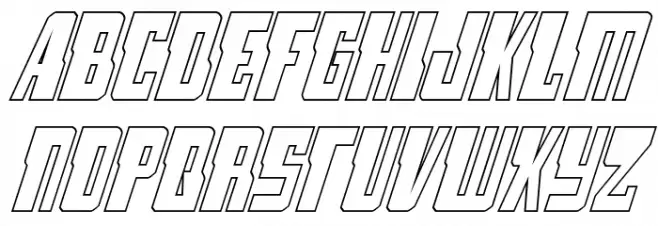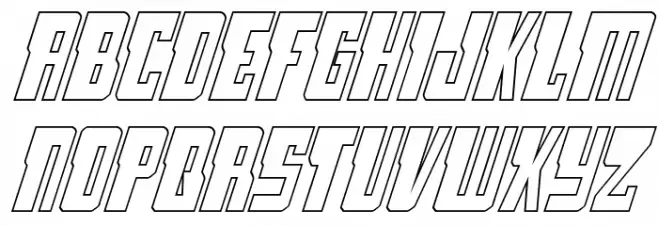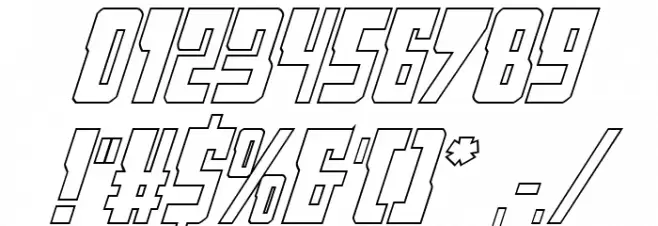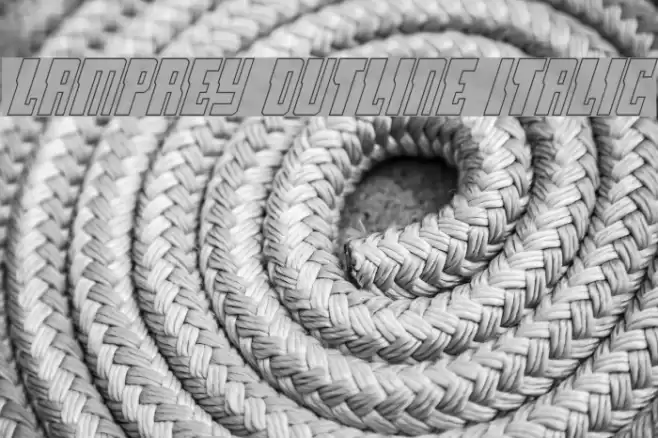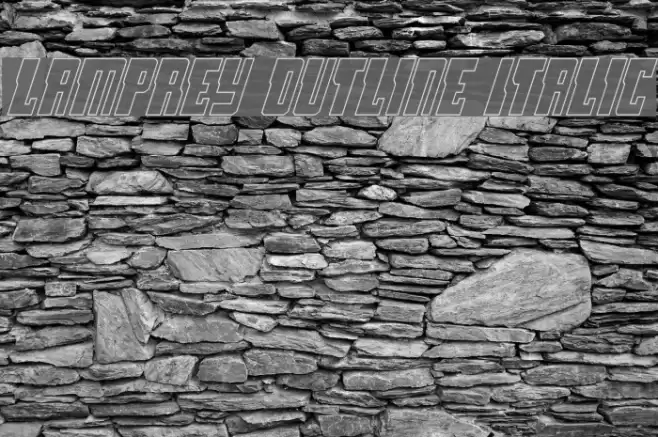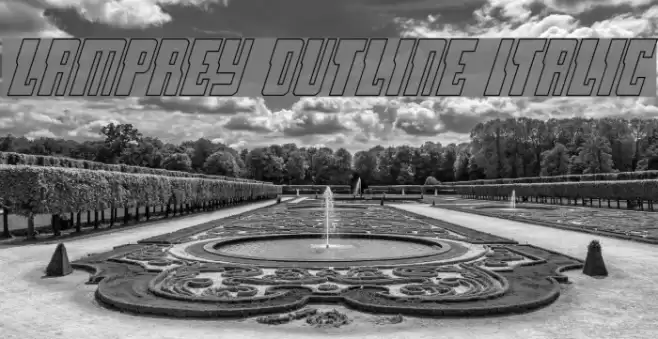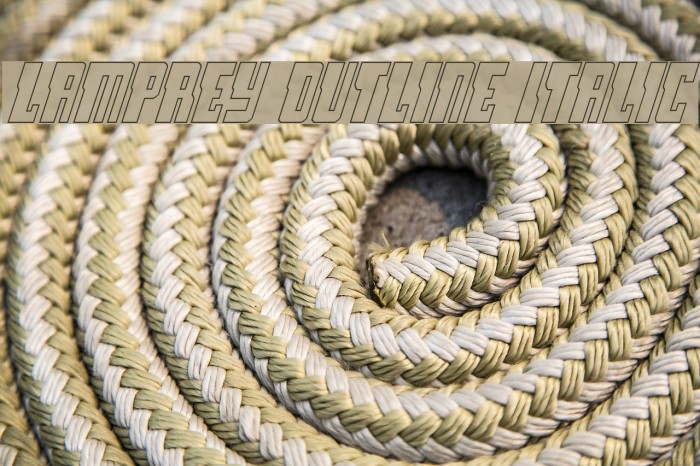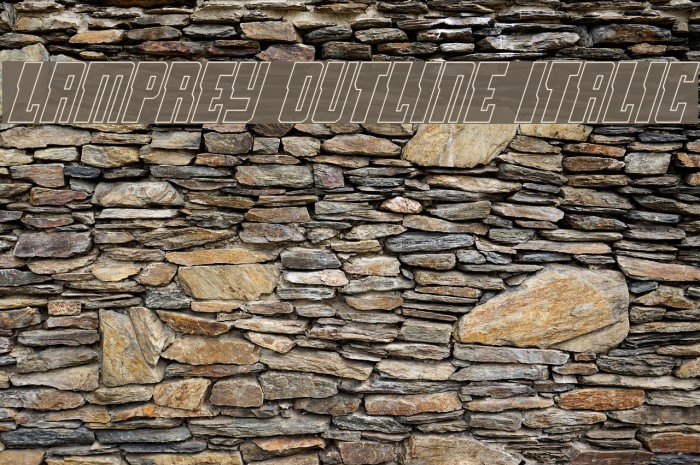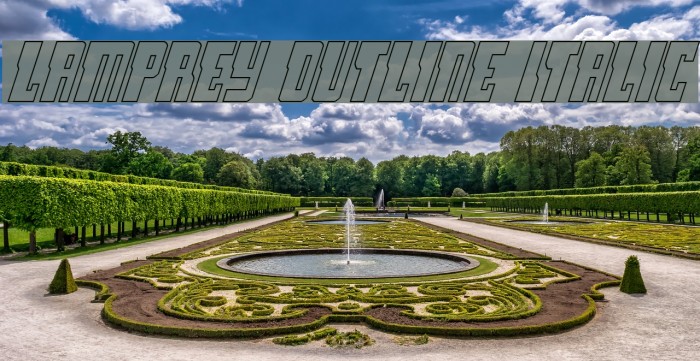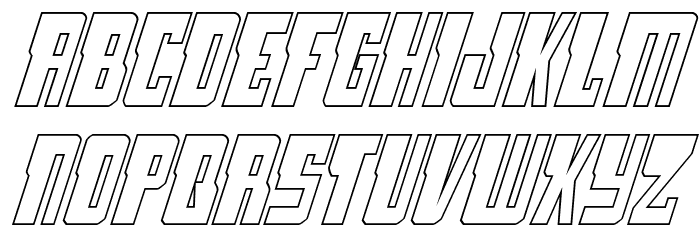
Lamprey Outline Italic
This font features a bold, angular design with a distinct outline style that gives it a modern and edgy appearance. The characters are italicized, adding a dynamic and forward-leaning aspect to the overall look. Each letter is crafted with sharp edges and a geometric structure, making it stand out with a futuristic vibe. The uppercase and lowercase letters maintain a consistent style, while the numbers and special characters complement the overall design with similar angular outlines. This font is ideal for projects that require a strong visual impact and a contemporary feel.
Bold, angular outline font with an italicized, modern design.
- Proposed Projects: Ideal for futuristic branding, tech-related designs, video game titles, and dynamic posters.
- Use Case: Headlines, Logos, Posters